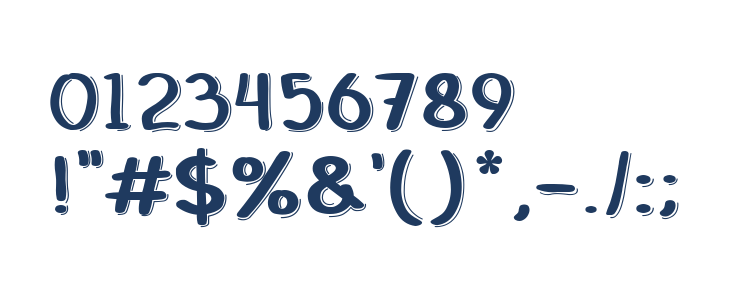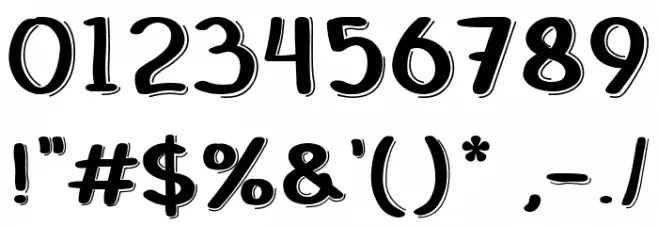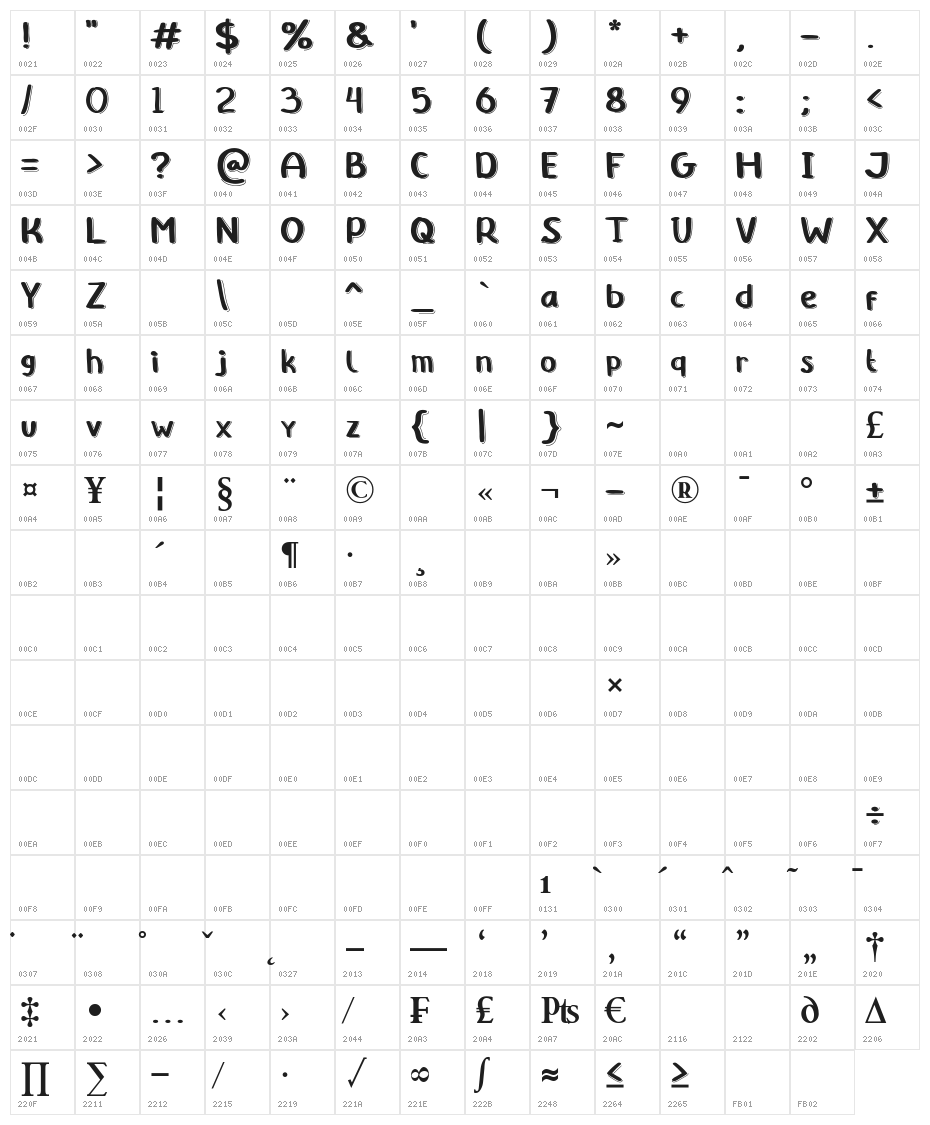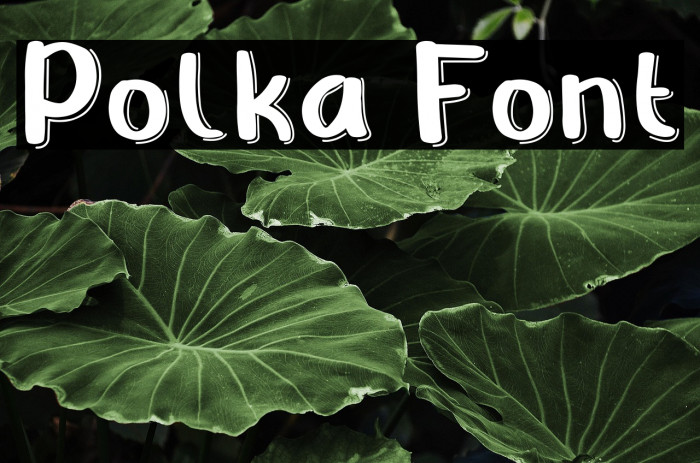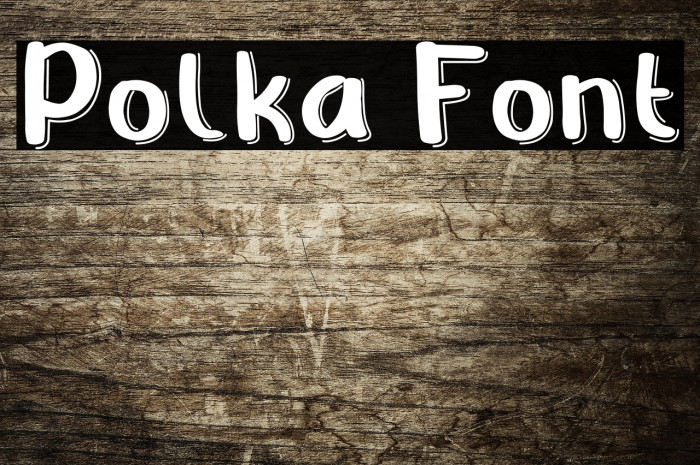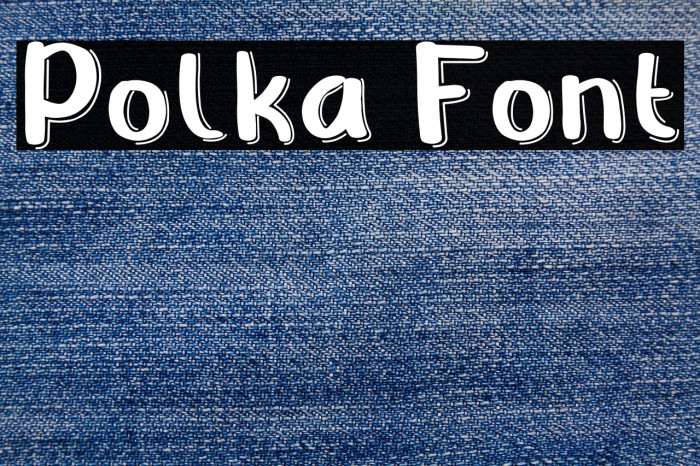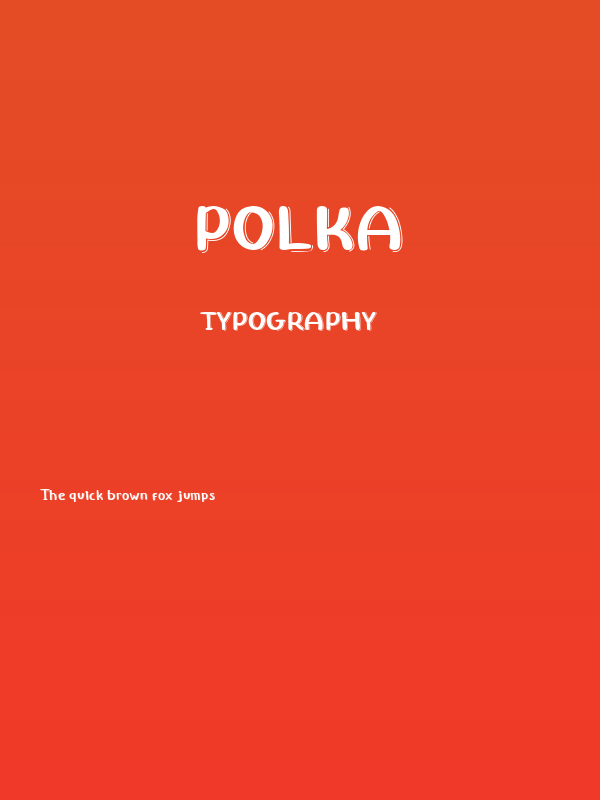
Polka Font
Polka Description
This font features a playful and bold design with a hand-drawn aesthetic. The characters are rounded and slightly irregular, giving it a whimsical and informal appearance. The strokes are thick and consistent, with a slight shadow effect that adds depth and dimension. The uppercase and lowercase letters maintain a uniform style, while the numbers and special characters complement the overall look. This font is ideal for projects that require a fun and engaging visual element.
Overall StylePlayful, Whimsical
Proposed ProjectsIdeal for children's books, playful branding, party invitations, and creative posters.